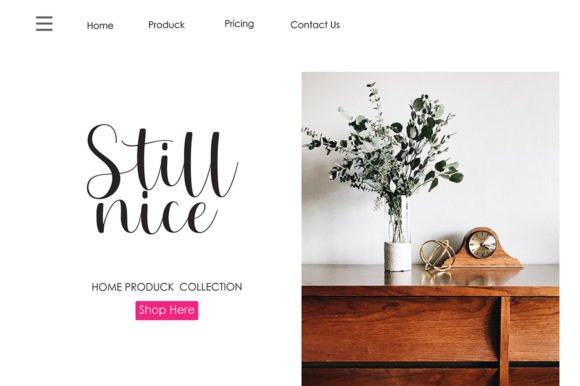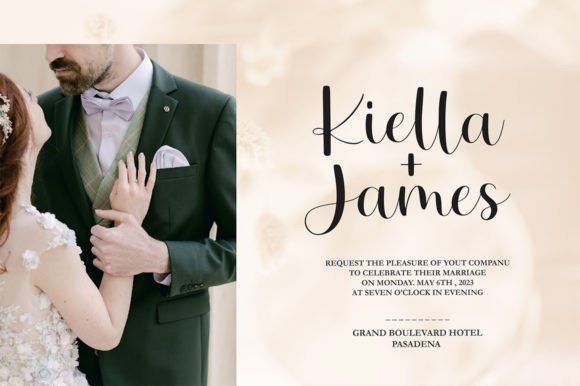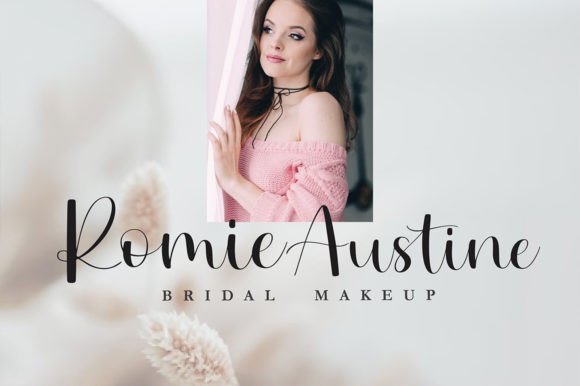
Introduction to Julieto Font
Julieto is a flowing handwritten font, described by an elegant touch, perfect for your favorite projects.
Fall in love with its incredibly distinct and timeless style and use it to create spectacular designs This font is PUA encoded which means you can access all the glyphs and ligatures with ease.
Key Features of Julieto Font